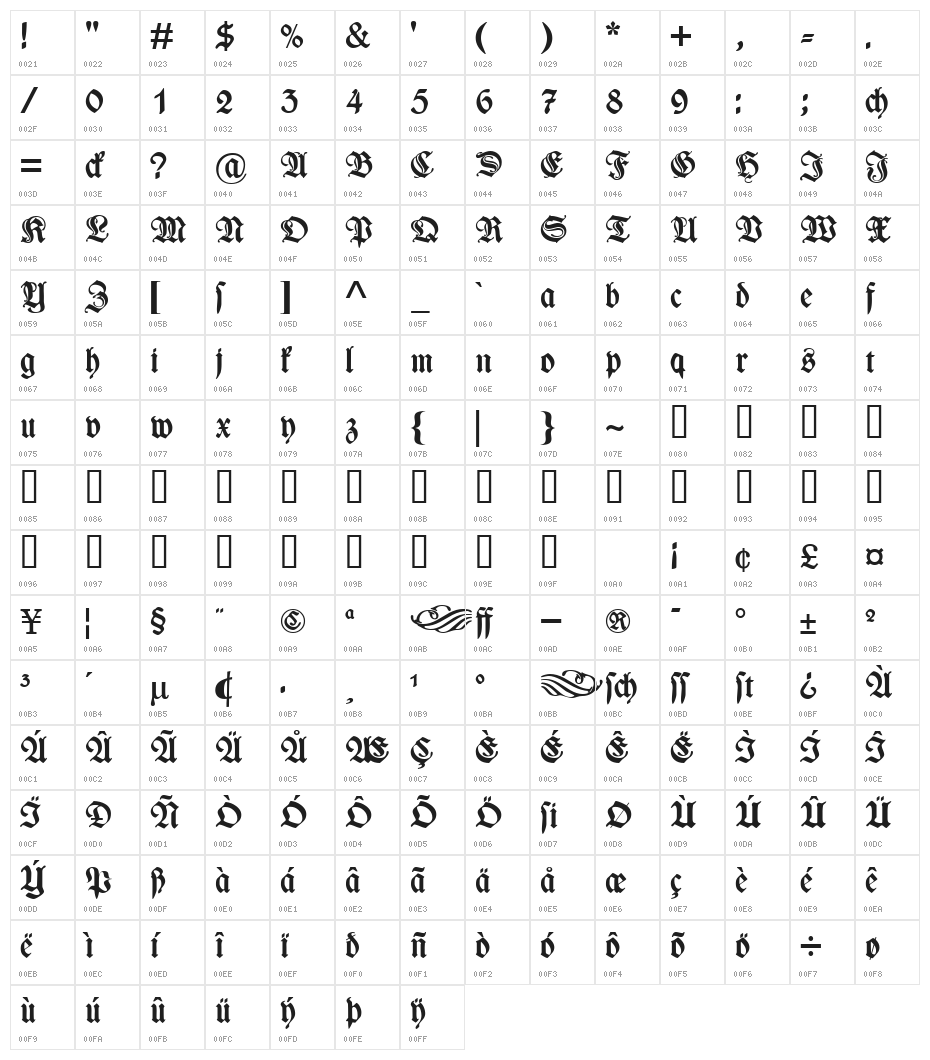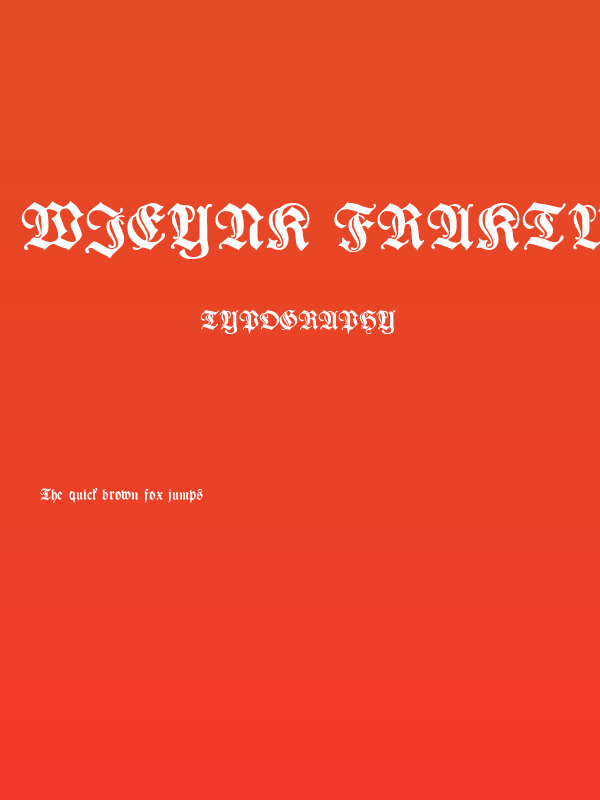
Wieynk Fraktur Zier Font
Wieynk Fraktur Zier Description
This font exudes a classic and historical aura, characterized by its intricate and ornate design. The letters are crafted with elaborate flourishes and sharp angles, typical of traditional blackletter styles. Each character is distinct, with a high level of detail that gives it a majestic and formal appearance. The uppercase letters are particularly decorative, featuring additional embellishments that enhance their grandeur. The lowercase letters maintain the same level of intricacy, ensuring consistency throughout the typeface. The numbers and special characters are equally ornate, making this font suitable for projects that require a touch of elegance and tradition.
| Use Case | Headlines, Logos, Decorative text |
| Proposed Projects | Ideal for use in certificates, wedding invitations, historical documents, and branding that requires a traditional and elegant touch. |